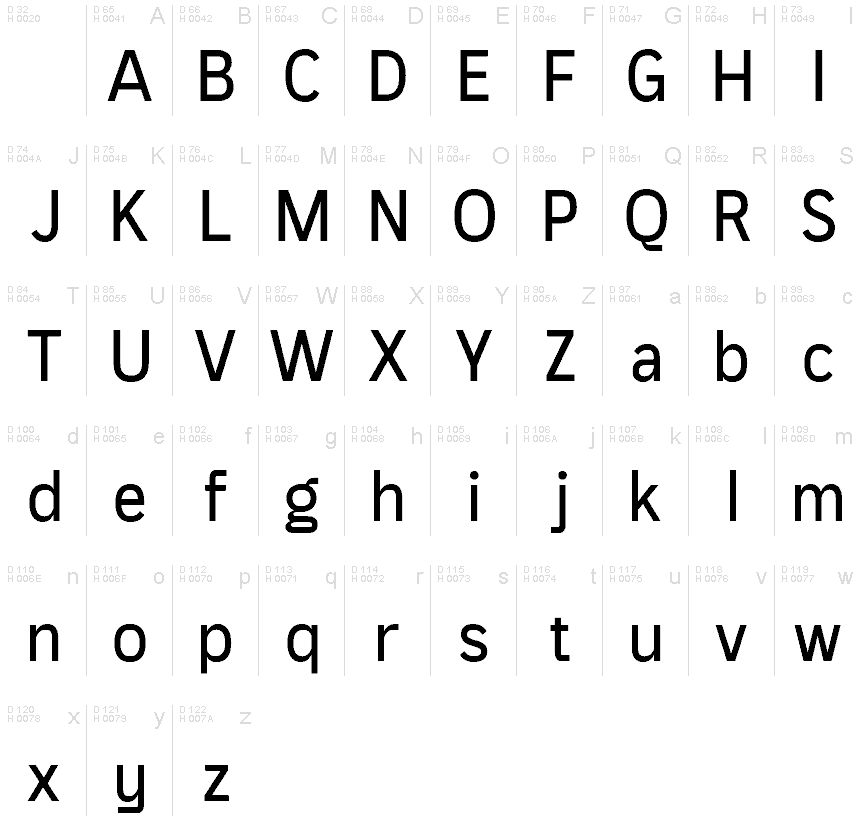
CS Mango Regular Demo
CS Mango font by Craft Supply Co. is a beautiful sans serif with geometric smooth lines and legible characters. Being modern in style, this easy-to-read typeface allows readers from all skills and backgrounds to understand the message before them.